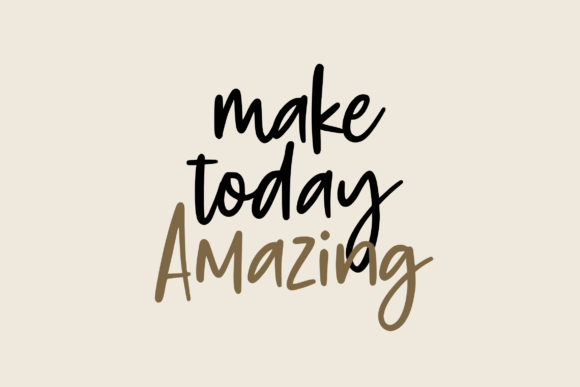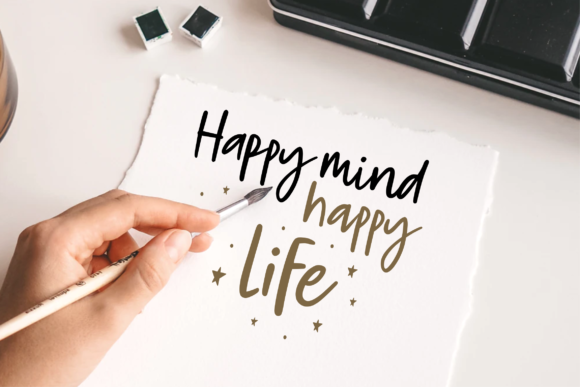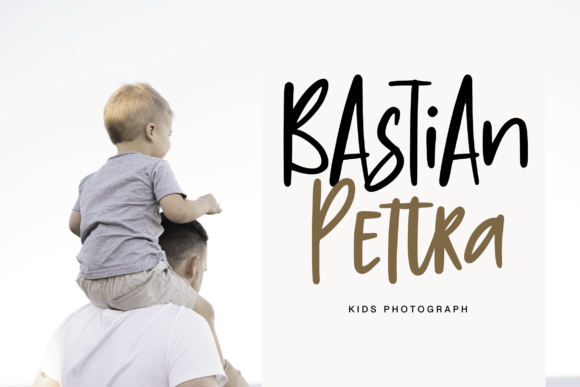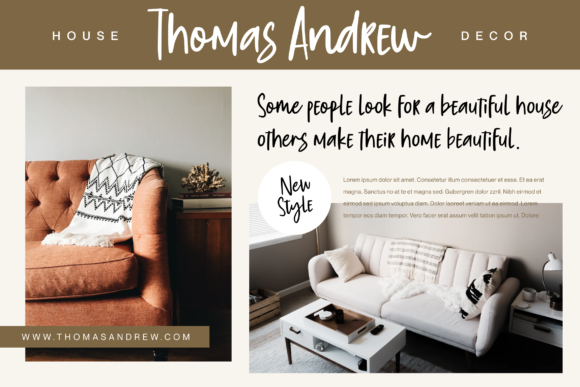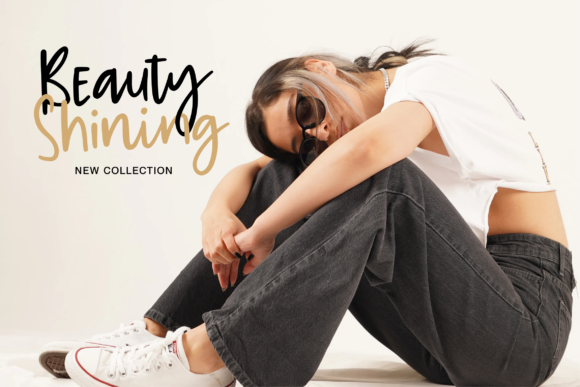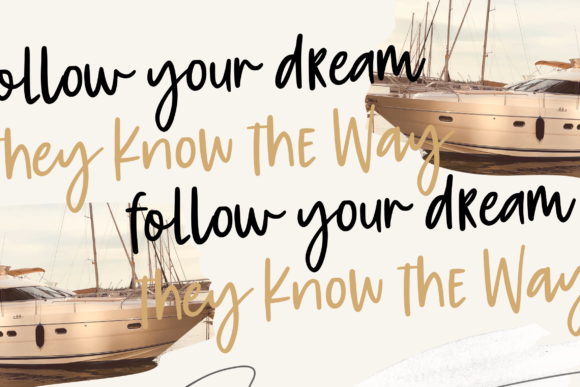
Introducing Chunky Hulrey Font: The Ultimate Choice for Eye-Catching Designs
Are you a designer or crafter looking for a font that can add a touch of personality to your creations? Look no further than Chunky Hulrey Font! This laid-back and friendly handwritten font is perfect for creating eye-catching logos, branding, and quotes that will make your design come alive.
What Makes Chunky Hulrey Font So Special?
Chunky Hulrey Font is not just any ordinary font. Its unique and beautiful touch sets it apart from other fonts, making it the best choice for designers and crafters who want to add a personal touch to their work. Every letter in this font has been carefully crafted to give it a distinctive and charming feel that will make your designs stand out.
The Perfect Choice for Logos and Branding
When it comes to creating logos and branding, you want a font that is not only visually appealing but also conveys the right message. Chunky Hulrey Font is the perfect choice for this. Its laid-back and friendly feel makes it ideal for creating logos and branding that are approachable and inviting. Whether you’re creating a logo for a new business or rebranding an existing one, Chunky Hulrey Font is sure to make a lasting impression.
Add a Personal Touch to Your Quotes and Designs
Chunky Hulrey Font is not just limited to logos and branding. It’s also perfect for adding a personal touch to your quotes and designs. Whether you’re creating a motivational poster, a social media graphic, or a handmade craft, this font is sure to add a touch of personality and whimsy to your work.
Why Choose Chunky Hulrey Font?
So why choose Chunky Hulrey Font over other fonts? Here are just a few reasons:
- Unique and Beautiful Touch: Every letter in Chunky Hulrey Font has a unique and beautiful touch that sets it apart from other fonts.
- Laid-Back and Friendly Feel: This font has a laid-back and friendly feel that makes it perfect for creating approachable and inviting designs.
- Perfect for Logos and Branding: Chunky Hulrey Font is the perfect choice for creating eye-catching logos and branding that will make a lasting impression.
- Easy to Read: Despite its chunky and handwritten feel, Chunky Hulrey Font is easy to read and understand, making it perfect for use in a variety of designs.
How to Use Chunky Hulrey Font
Using Chunky Hulrey Font is easy! Here are a few tips to get you started:
- Pair it with Other Fonts: Chunky Hulrey Font pairs well with other fonts, so don’t be afraid to experiment with different combinations.
- Use it for Headings and Titles: This font is perfect for use in headings and titles, where you want to make a bold and eye-catching statement.
- Add it to Your Designs: Whether you’re creating a digital design or a handmade craft, Chunky Hulrey Font is sure to add a touch of personality and whimsy to your work.
In conclusion, Chunky Hulrey Font is a laid-back and friendly handwritten font that is perfect for creating eye-catching logos, branding, and quotes. Its unique and beautiful touch sets it apart from other fonts, making it the best choice for designers and crafters who want to add a personal touch to their work. So why wait? Try Chunky Hulrey Font today and see the difference it can make in your designs!